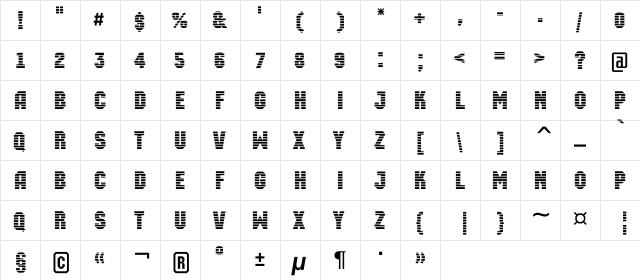
a_MachinaOrtoMr Regular
Design Context for a_MachinaOrtoMr Typeface
a_MachinaOrtoMr offers clean, dependable letterforms without strong stylistic allegiance, making it a practical choice for designers who need flexibility.